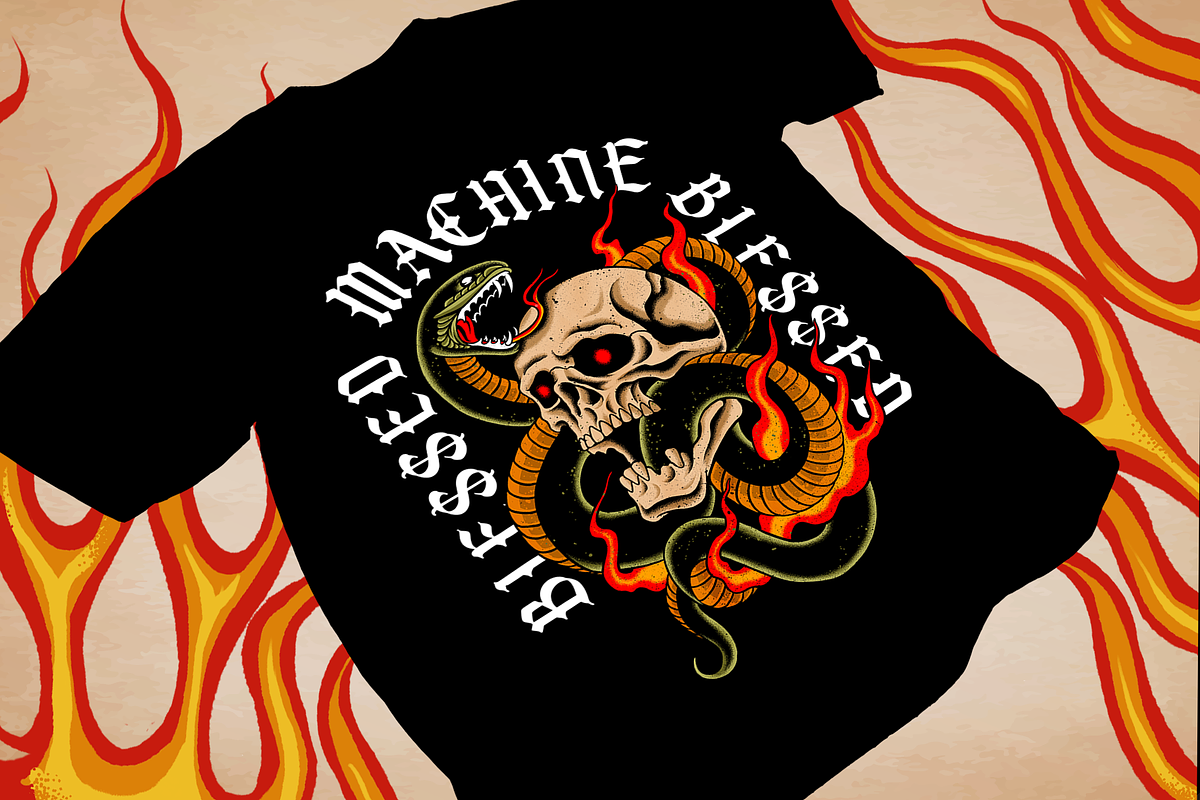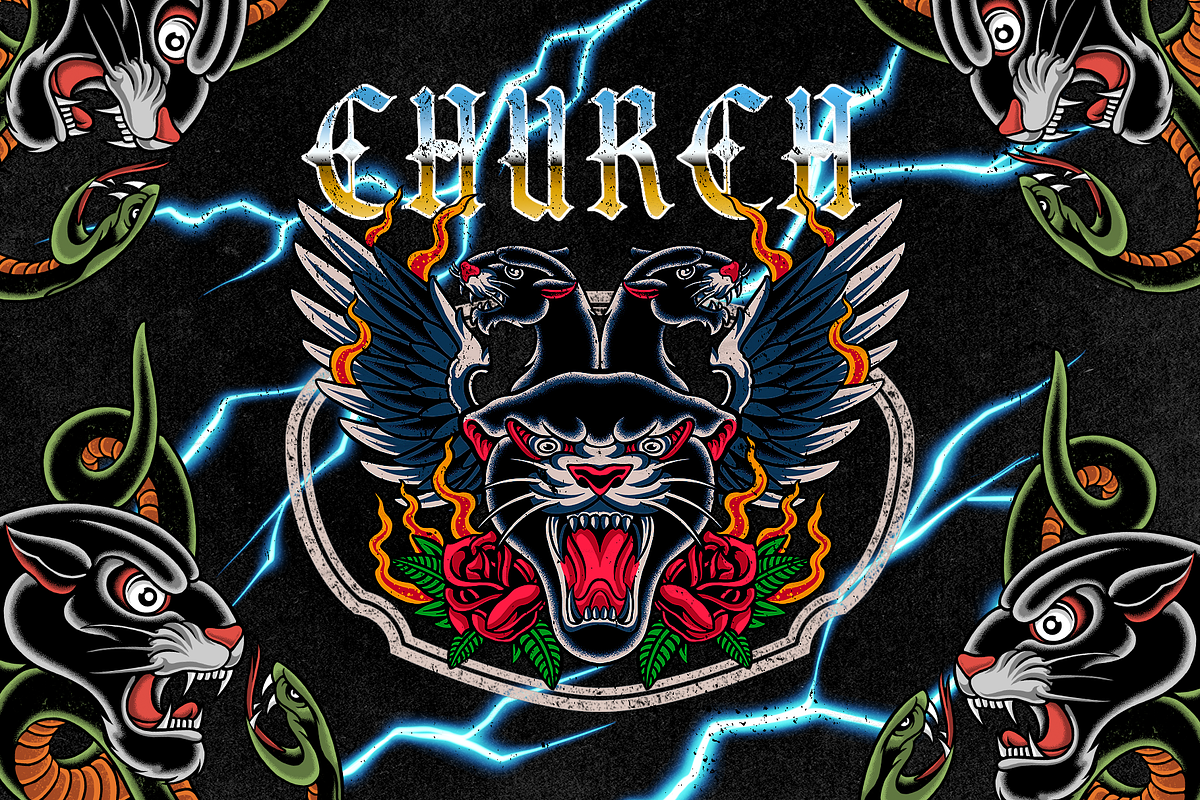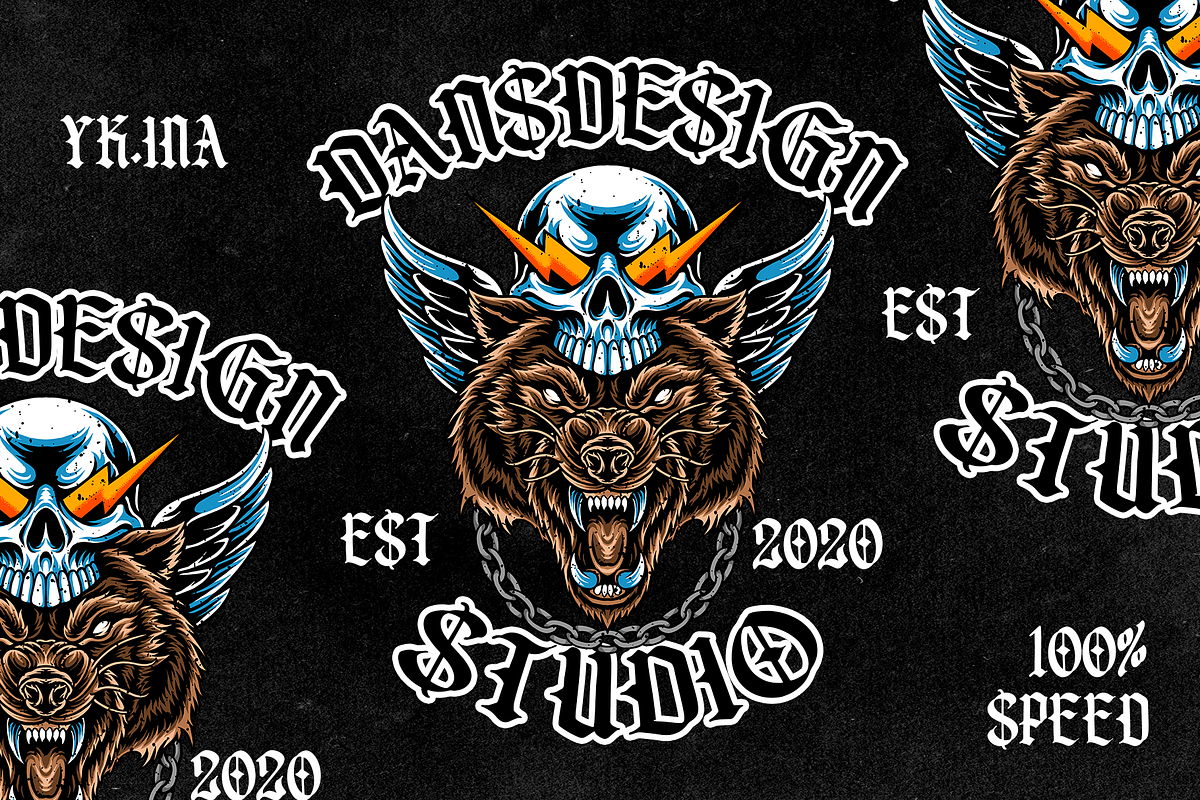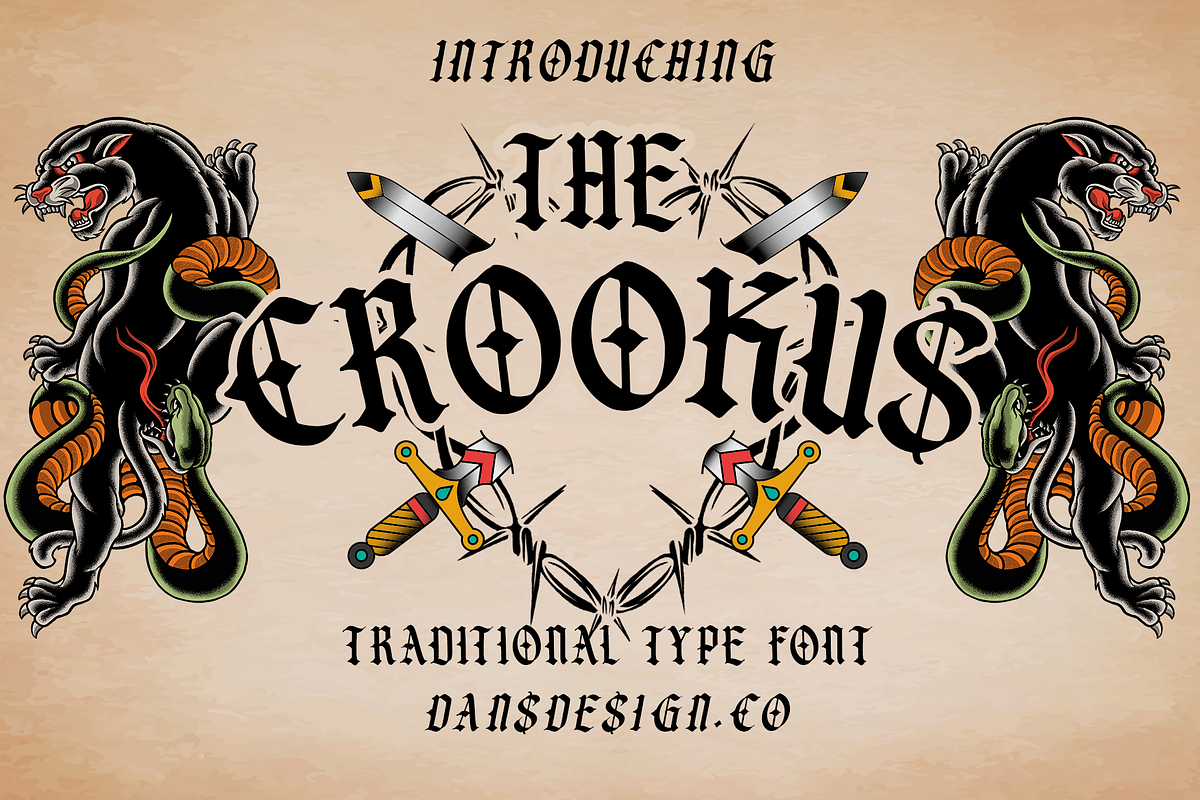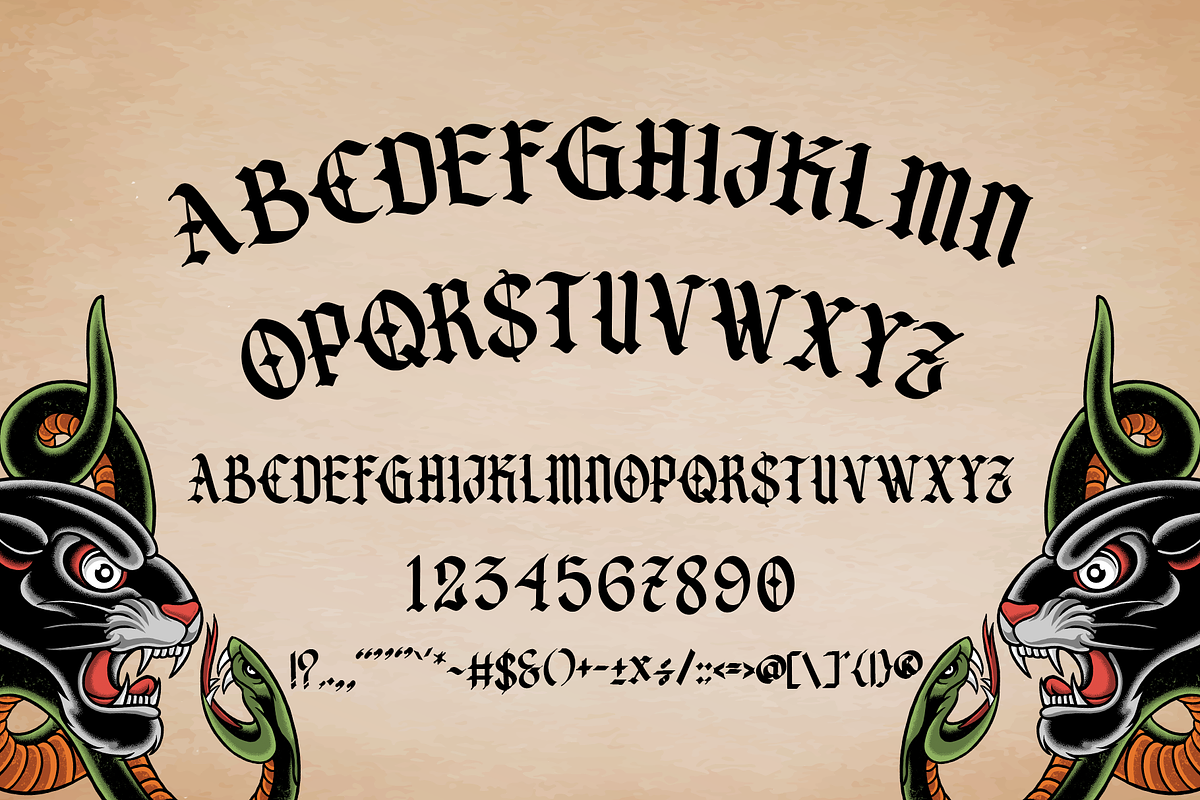
The Crookus
Dansdesign Proudly present The Crookus Vintage blackletter font, This font is made with references to various letters that I combine and design with my style.
The Crookus are great and usefull for product logo, poster title, headline, packaging, badge, wedding card logo, clothing brand logo, Vintage design and much more